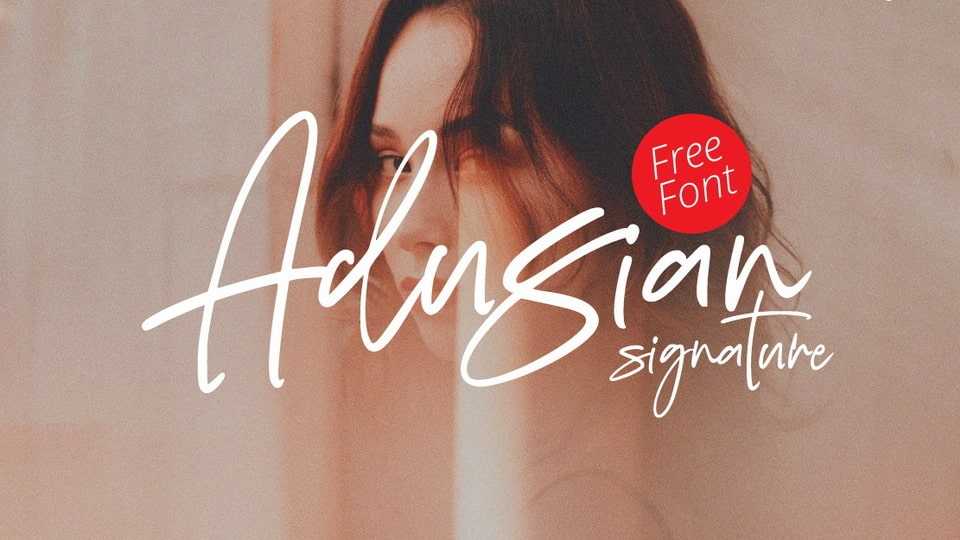
Download Adusian Signature font, a stylish handwritten typeface, perfect for give a casual, natural, and organic vibe to any project. Add a touch of personality your designs with Adusian Signature font.
Designer: Tebal Tipisstd